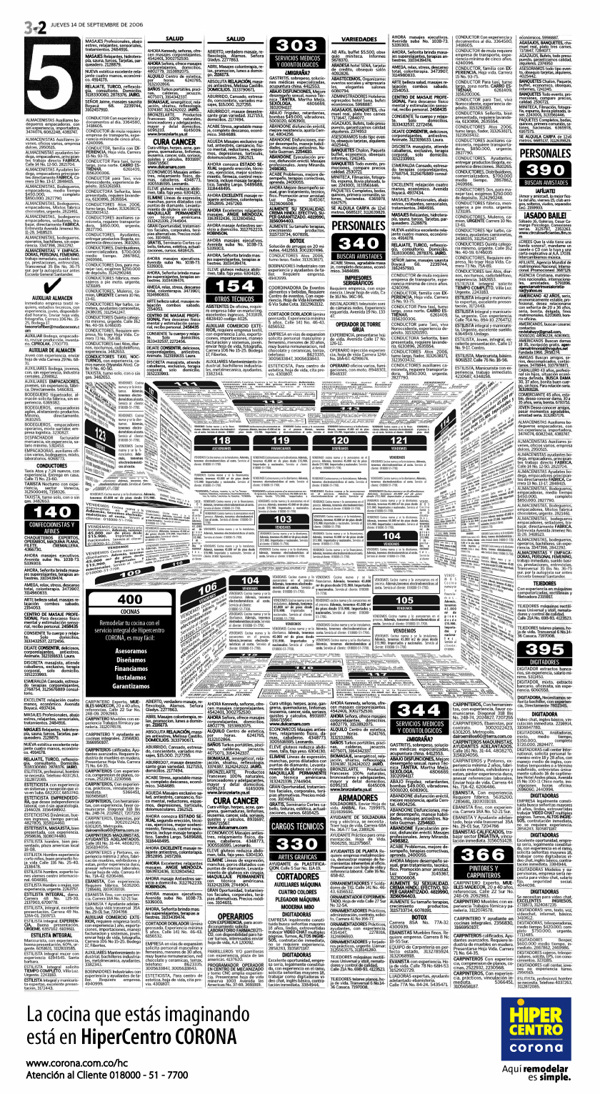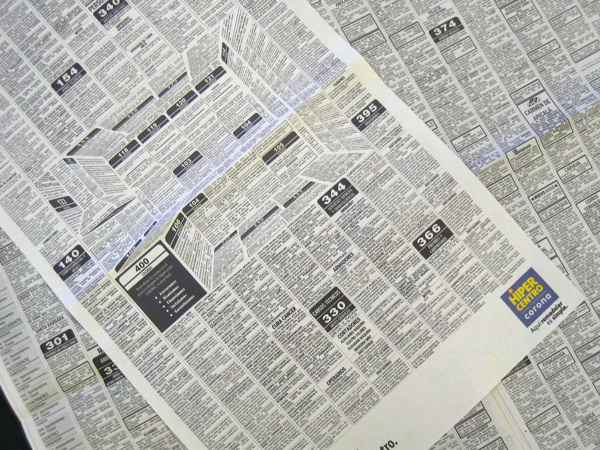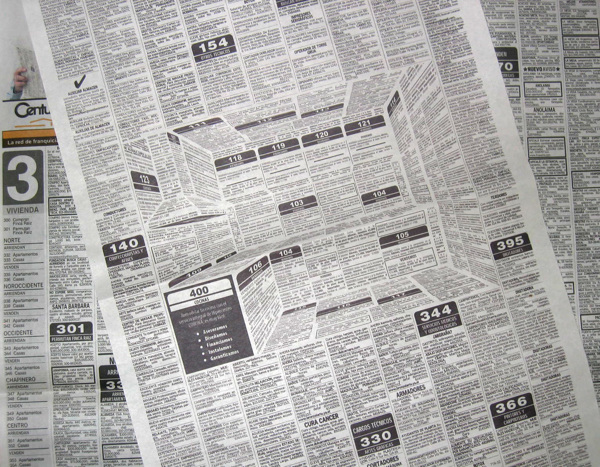
Imaginative ad using the newspaper's type in a creative twist
The Colombia-based designer Felipe Salazar came up with an incredible idea for advertising a kitchen brand in a newspaper. Instead of creating something flashy, he decided to embed the kitchen right into the classified ads page. A simple, yet genius, arrangement of text, columns and white space creates the optical illusion of a three-dimensional kitchen hidden in the page. The result is really eye-catching and makes us think: Finally, an ad that stands out!